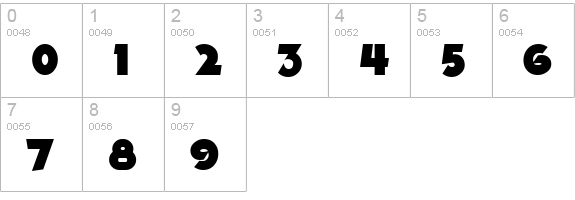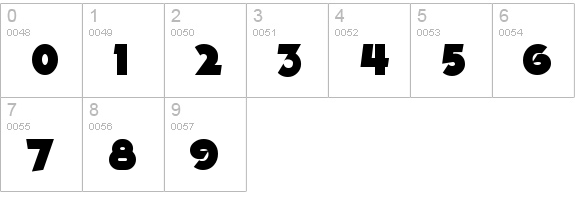
GoyaUltra Font Details
GoyaUltra is a stunning display font that exudes elegance and sophistication. Its bold and sleek design makes it perfect for adding a touch of luxury to your projects. With its clean lines and sharp edges, GoyaUltra commands attention and leaves a lasting impression. What sets GoyaUltra apart is not only its exquisite design but also the fact that it is available for free download at FontsMarket.com. This means that you can effortlessly elevate your designs without breaking the bank. Whether you're working on branding, packaging, or any other creative project, GoyaUltra is sure to make a statement. Download GoyaUltra today and take your designs to the next level with this striking and versatile font.